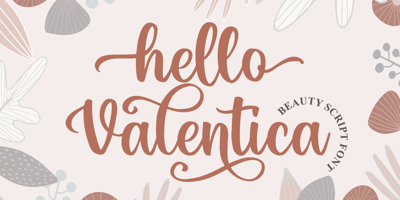
Hello Valentica Font Family was designed by Bangkit Tri Setiadi and published by Blankids. Hello Valentica contains 1 styles and family package options. Introducing of our new product the name is Hello Valentica a Beauty Script Font. Hello Valentica inspired by modern script this font is a fun theme very good for book cover, wedding invitation, t-shirt, quote, logotype, craft and etc.FEATURES : Uppercase Lowercase Number Punctuation Multilingual PUA Encode Opentype